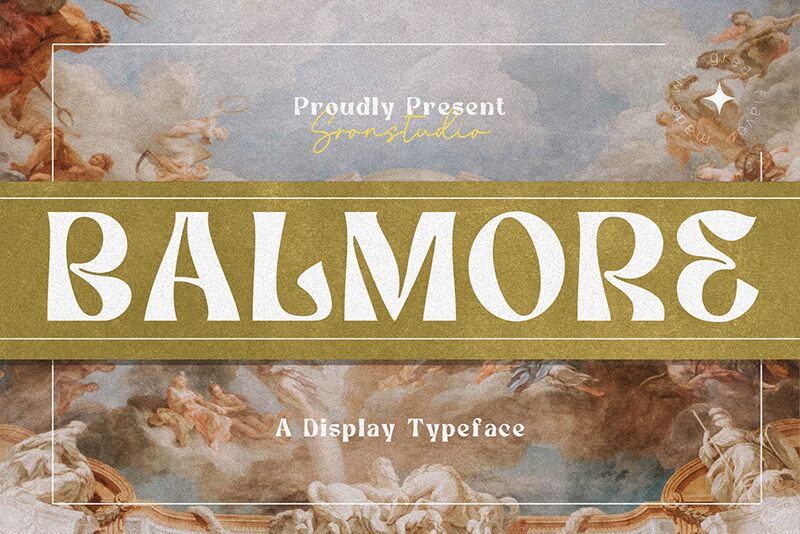
Balmore
Balmore font by Sronstudio is a bold display typeface that captures the essence of retro design. Its expressive and vintage-inspired appearance adds an artistic flair to any project. Decorative elements enhance its unique style, making it a standout choice for designers seeking a distinctive and engaging look.
This free decorative font is ideal for posters, packaging, logos, social media graphics, headlines, book covers, invitations, apparel design, and website headers. Inject some vintage charm into labels or advertisements with Balmore’s captivating aesthetic to instantly elevate your brand’s visual identity.